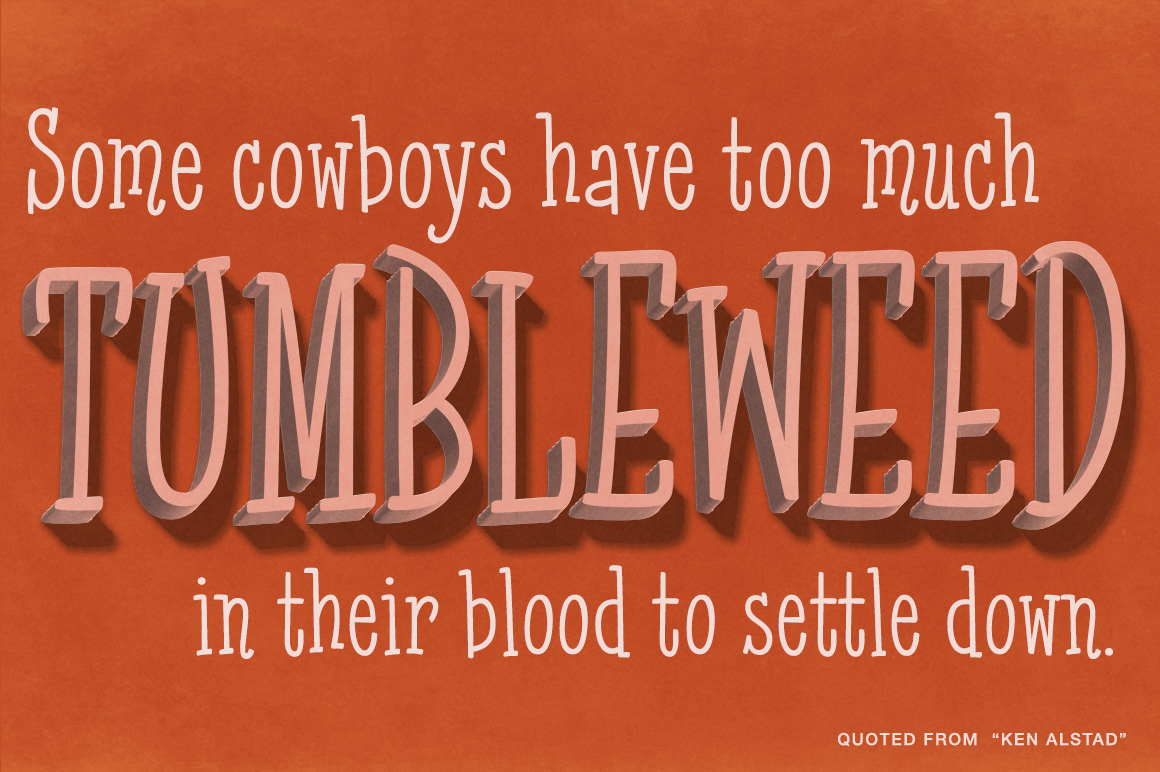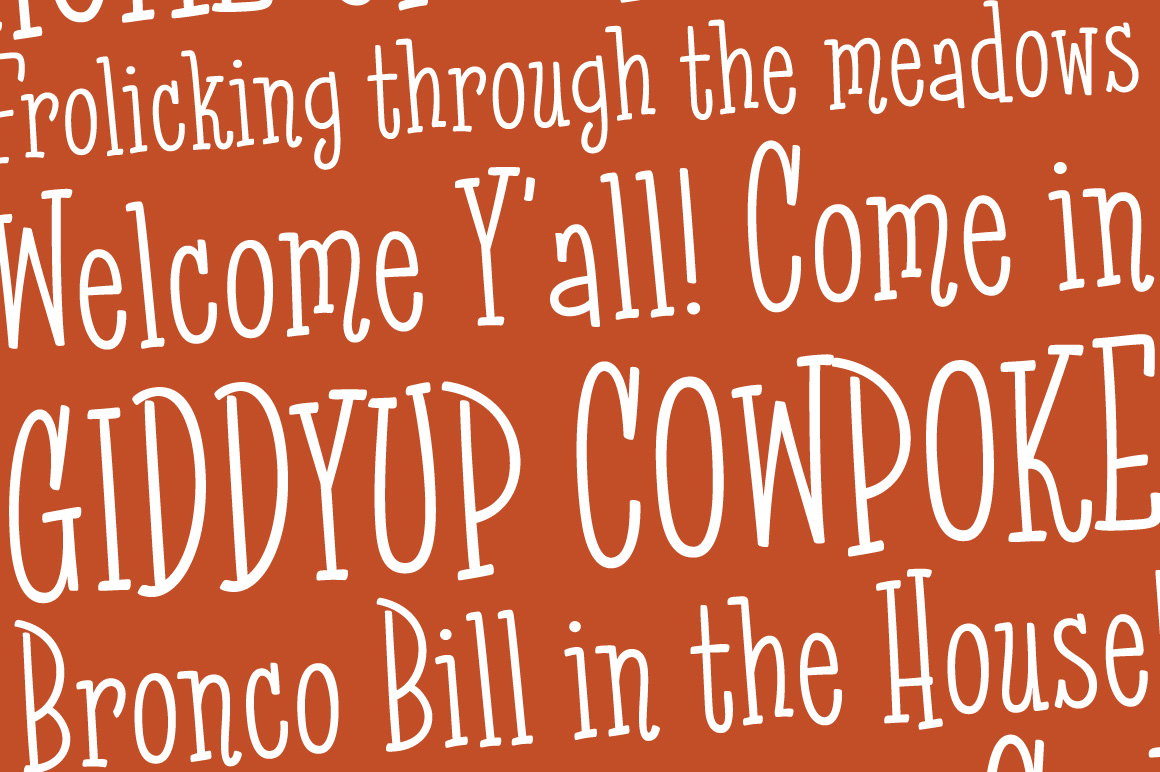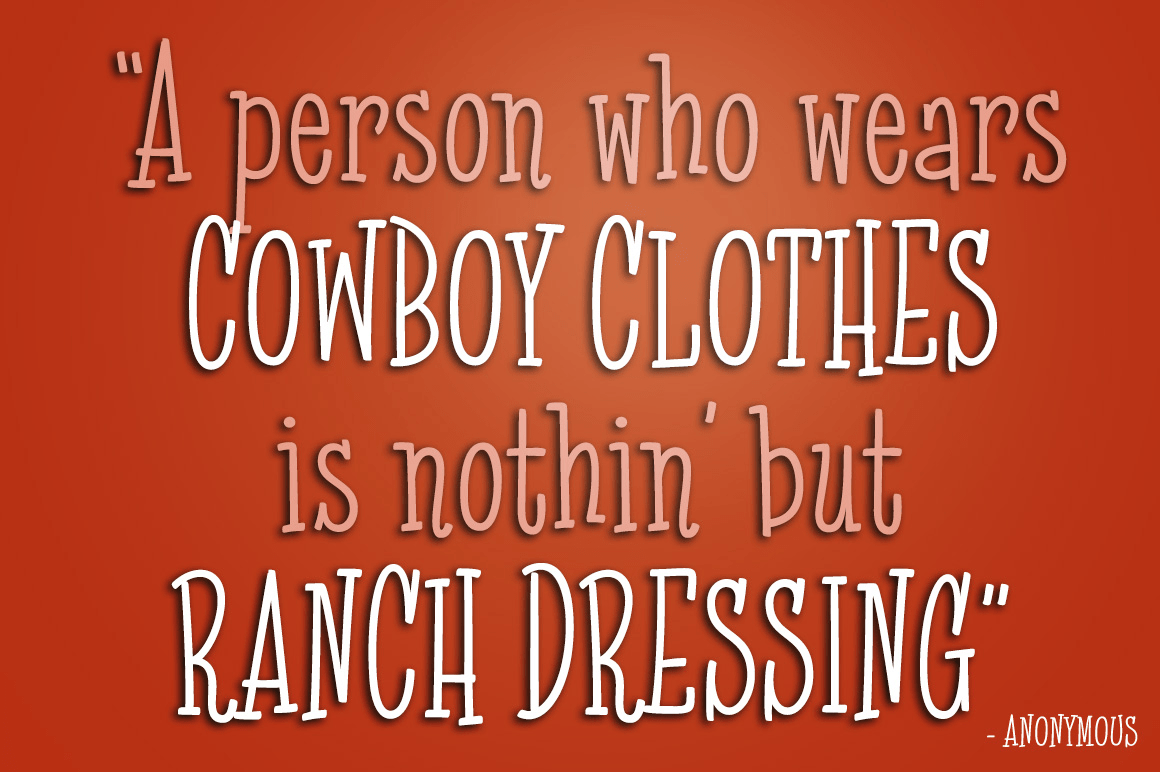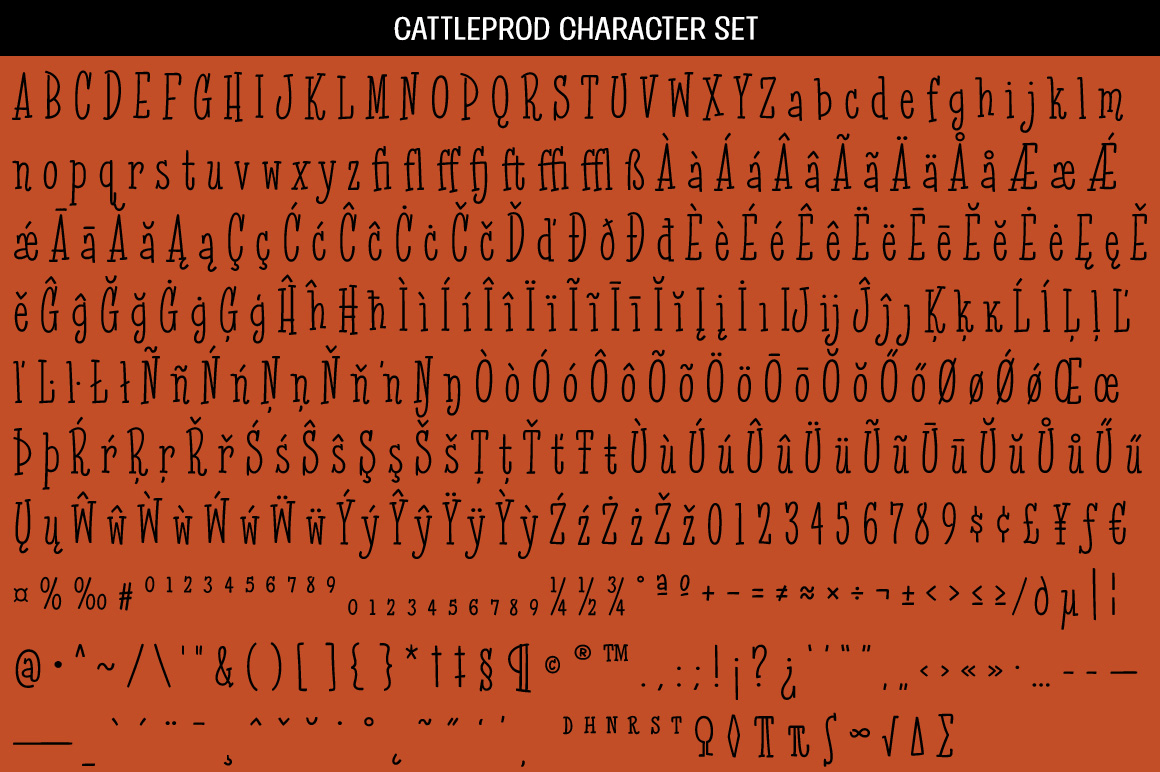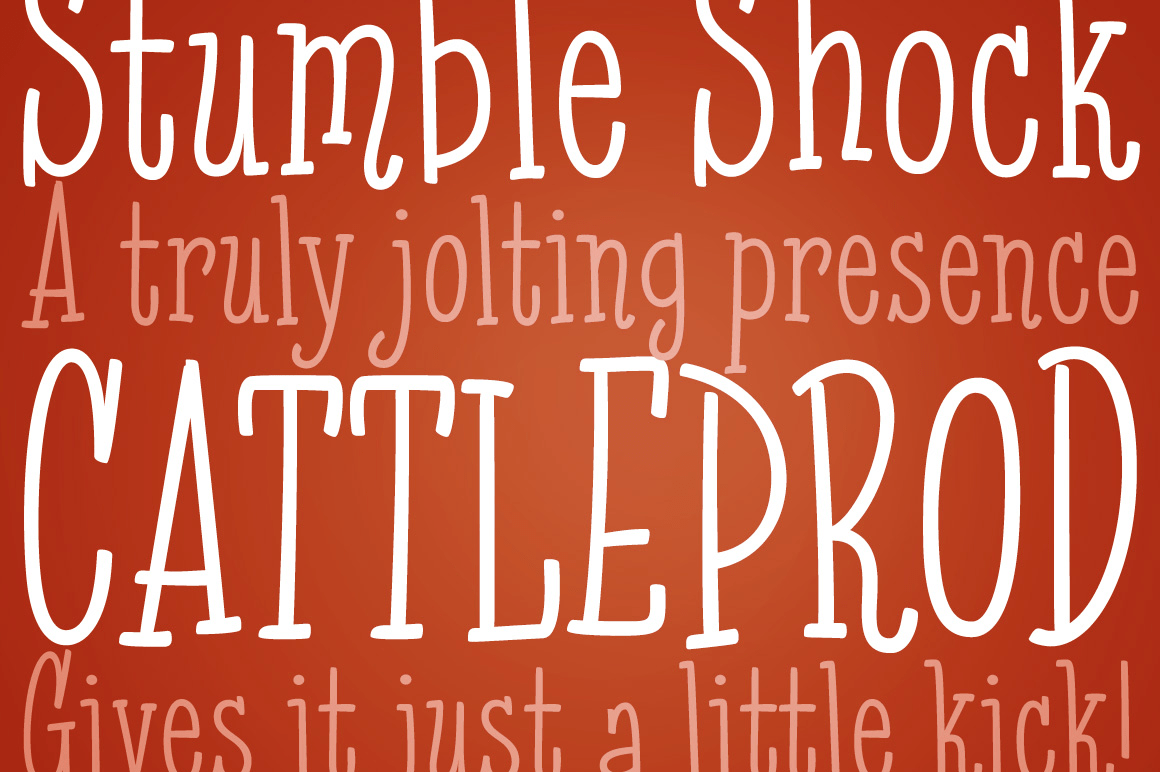
HomeFont BrosSerifCattleprod PB SerifWacky Cattleprod PB FacebookXPinterestWhatsApp 1 of 5 About Cattleprod PB Cattleprod is an offbeat slab serif font full of swagger. It was created without any reference, but just the idea of a playful somewhat stumbling stance in mind.  DOWNLOAD NOW People also explored Trilight Halloweenie Font Dynascript Angel Font Nelachia Font Pink Pig Font Mastery Font Monograph Adelheid Font 215 0 TagsCattleprod PB Font Previous articleFace Your Fears 2024Next articlePAG Liberta LEAVE A REPLY Cancel reply Comment: Please enter your comment! Name:* Please enter your name here Email:* You have entered an incorrect email address! Please enter your email address here Website: Save my name, email, and website in this browser for the next time I comment. Personal Use Free Dealerplate California Personal Use Free Read more about this font Strasua Personal Use Free Read more about this font Rakesly Personal Use Free Read more about this font Bebas Neue Font Personal Use Free Read more about this font BLOG 5 Fonts That Will Dominate Design Trends in 2026 5 Fonts for 2026 That Will Dominate Design Trends Typography plays a critical role in visual communication, and as we look ahead to 2026, it’s... Exploring Font Trends Modern Sans-Serif Fonts That Brands Love in 2025 Using Fonts in Digital Marketing: Tips to Strengthen Your Brand Identity